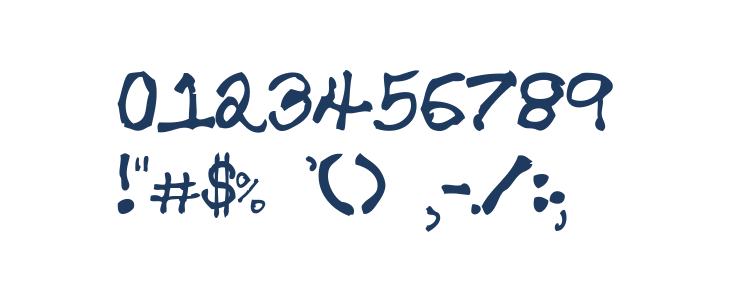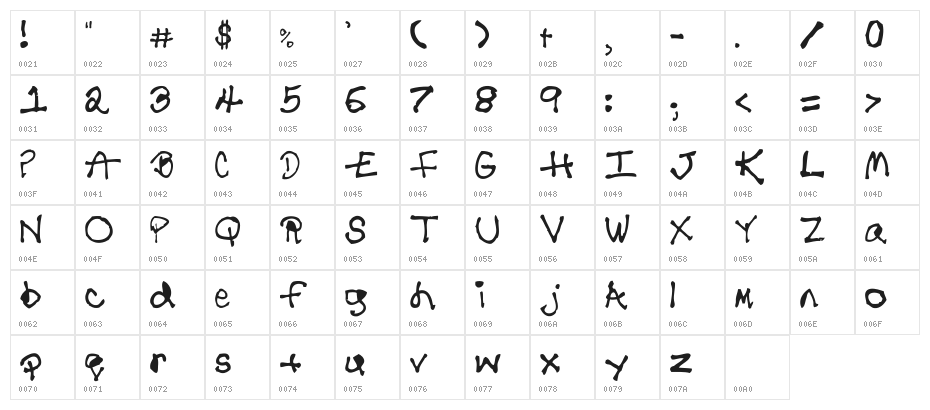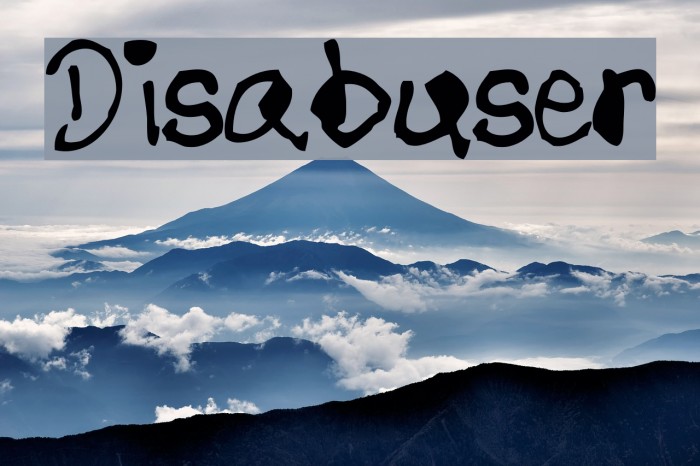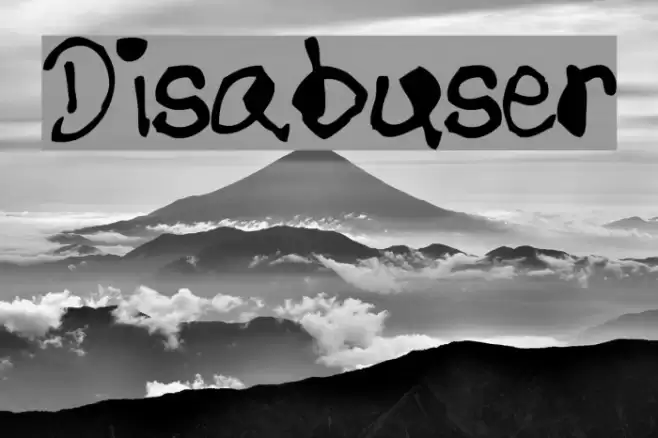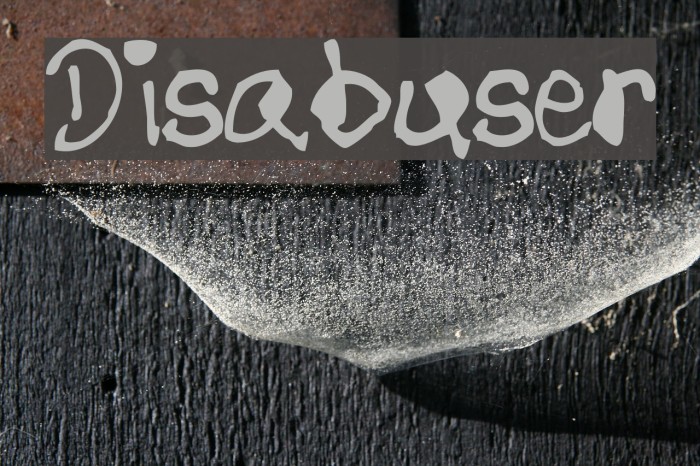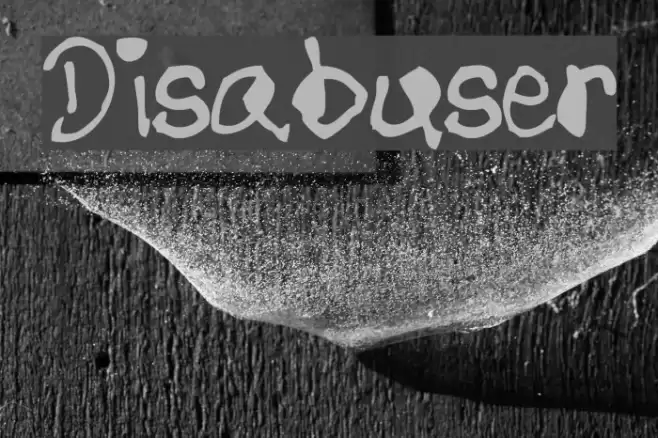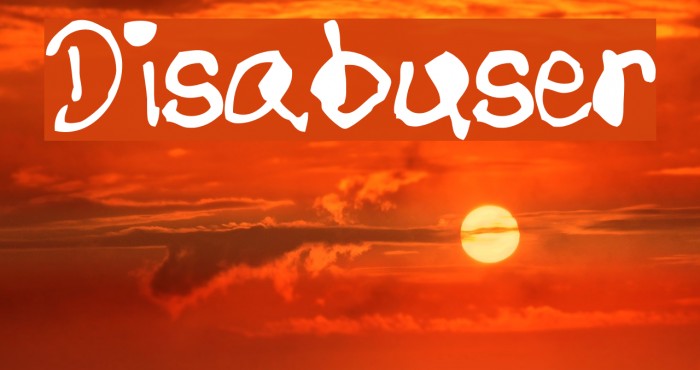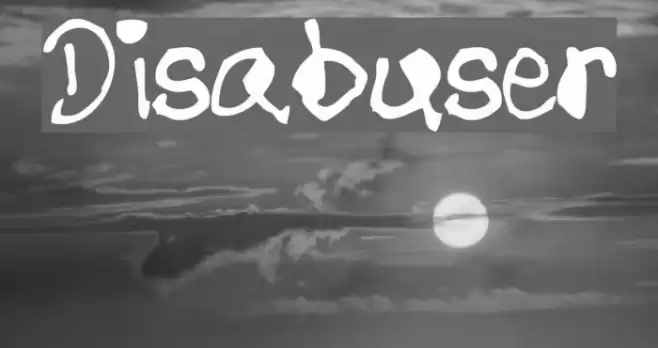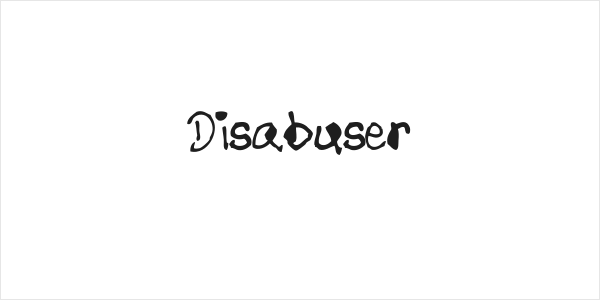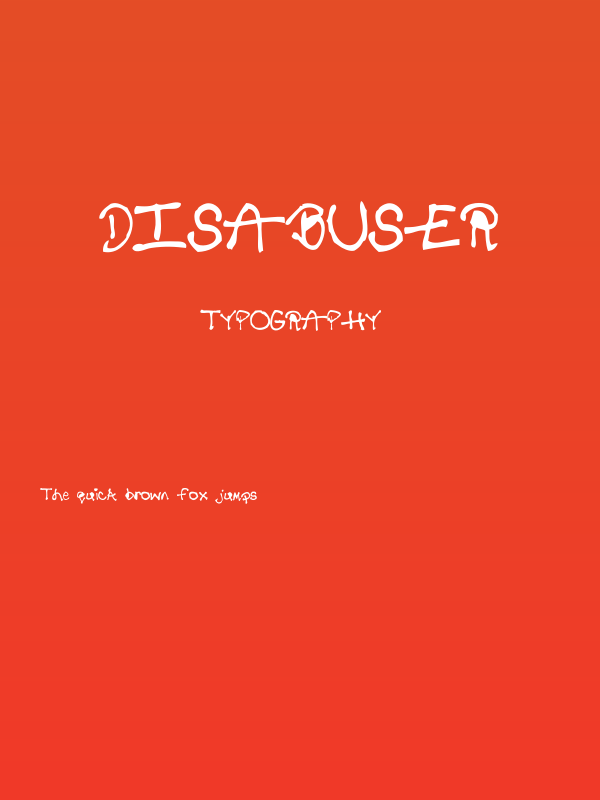
Disabuser Font
Disabuser Description
This font features a bold and expressive handwritten style, characterized by its irregular and playful strokes. The letters have a dynamic and energetic appearance, with varying thicknesses and a slightly chaotic arrangement that adds to its charm. The uppercase and lowercase letters maintain a consistent style, with unique flourishes and curves that give the font a distinctive personality. The numbers and special characters are equally bold and maintain the same lively aesthetic, making them stand out. This font is perfect for projects that require a touch of creativity and individuality.
| Use Case | Logos, Headlines, Artistic designs |
| Proposed Projects | Ideal for creative projects such as posters, invitations, branding, and artistic designs. |